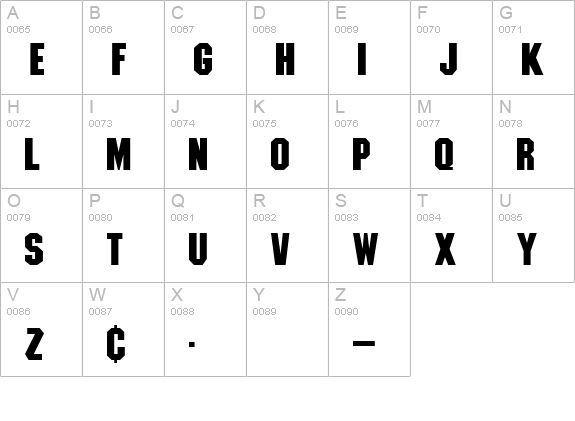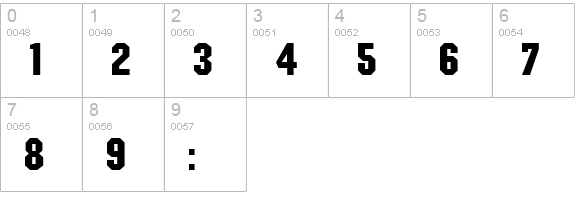
MachineBlock Font Details
Introducing MachineBlock, a cutting-edge font that blends modern aesthetics with a touch of industrial charm. This versatile typeface captures the essence of precision and efficiency, making it the perfect choice for projects requiring a bold and contemporary look. With its clean lines and distinct geometric shapes, MachineBlock exudes a sense of strength and innovation, while maintaining a sense of approachability. Crafted with meticulous attention to detail, MachineBlock is designed to stand out in any application. Its bold letterforms are carefully balanced, ensuring maximum impact without sacrificing readability. Whether used for headlines, logos, posters, or branding materials, this font commands attention and leaves a lasting impression. MachineBlock is not only visually striking, but it also offers the convenience of being freely available to download at FontsMarket.com. This means that designers, creatives, and enthusiasts alike can effortlessly incorporate this remarkable font into their projects, without any financial constraints. The accessibility of MachineBlock ensures that anyone can harness its power to elevate their designs, amplifying their visual narratives and captivating their audience. So, if you're looking to add a touch of modernity and professionalism to your work, MachineBlock is the answer. Embrace the boldness, embrace the innovation, and unleash the potential of this remarkable font. Download MachineBlock for free at FontsMarket.com and unlock a world of endless possibilities for your design endeavors.